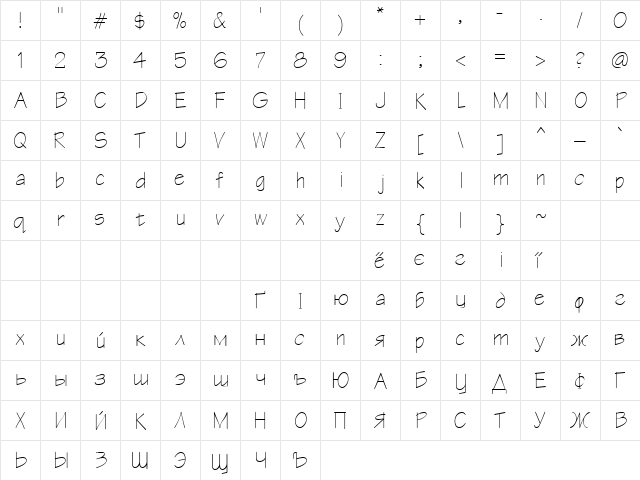
ER Architect KOI-8 Regular
Design Context for ER Architect KOI-8 Typeface
ER Architect KOI-8 offers clean, dependable letterforms without strong stylistic allegiance, making it a practical choice for designers who need flexibility.